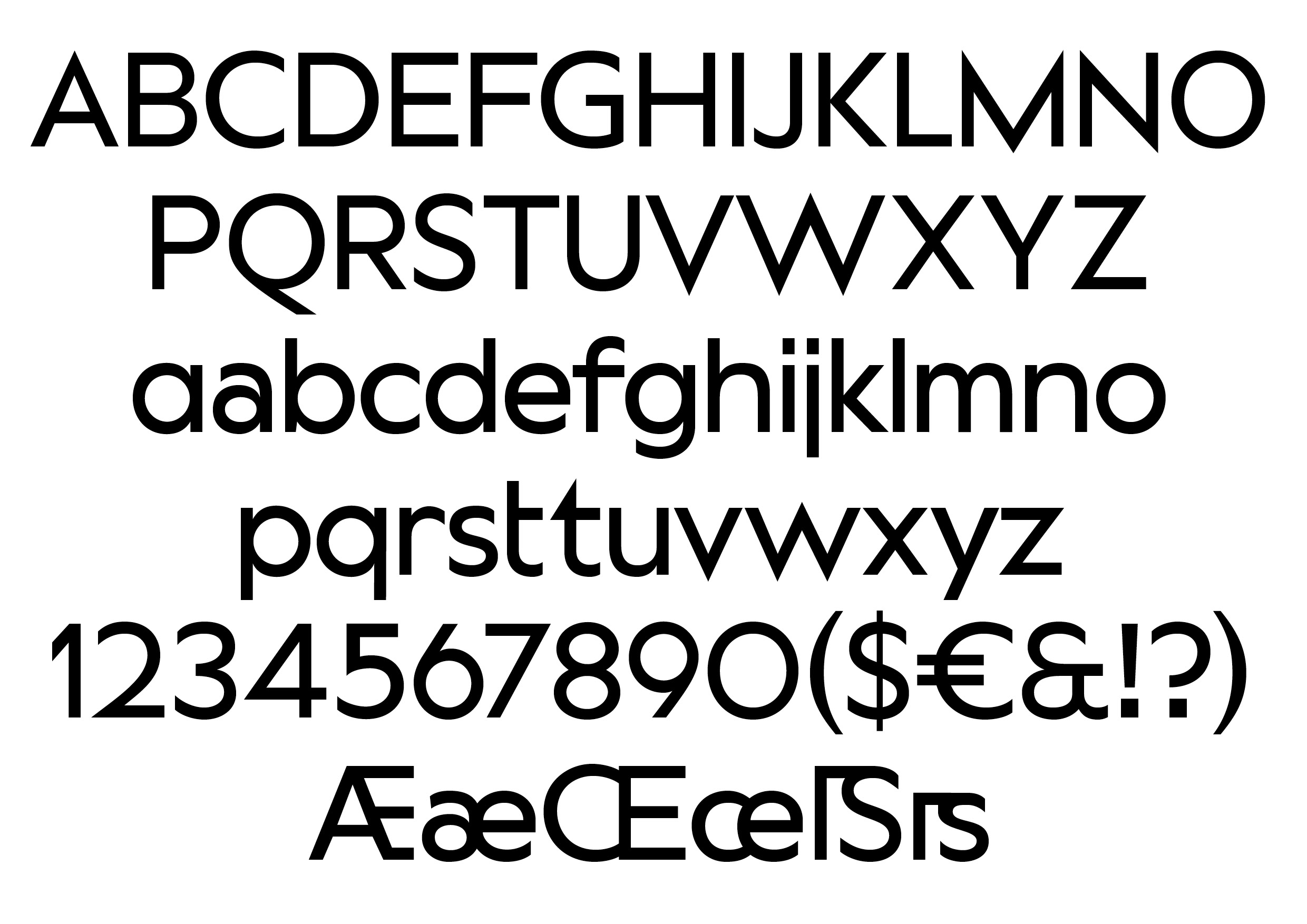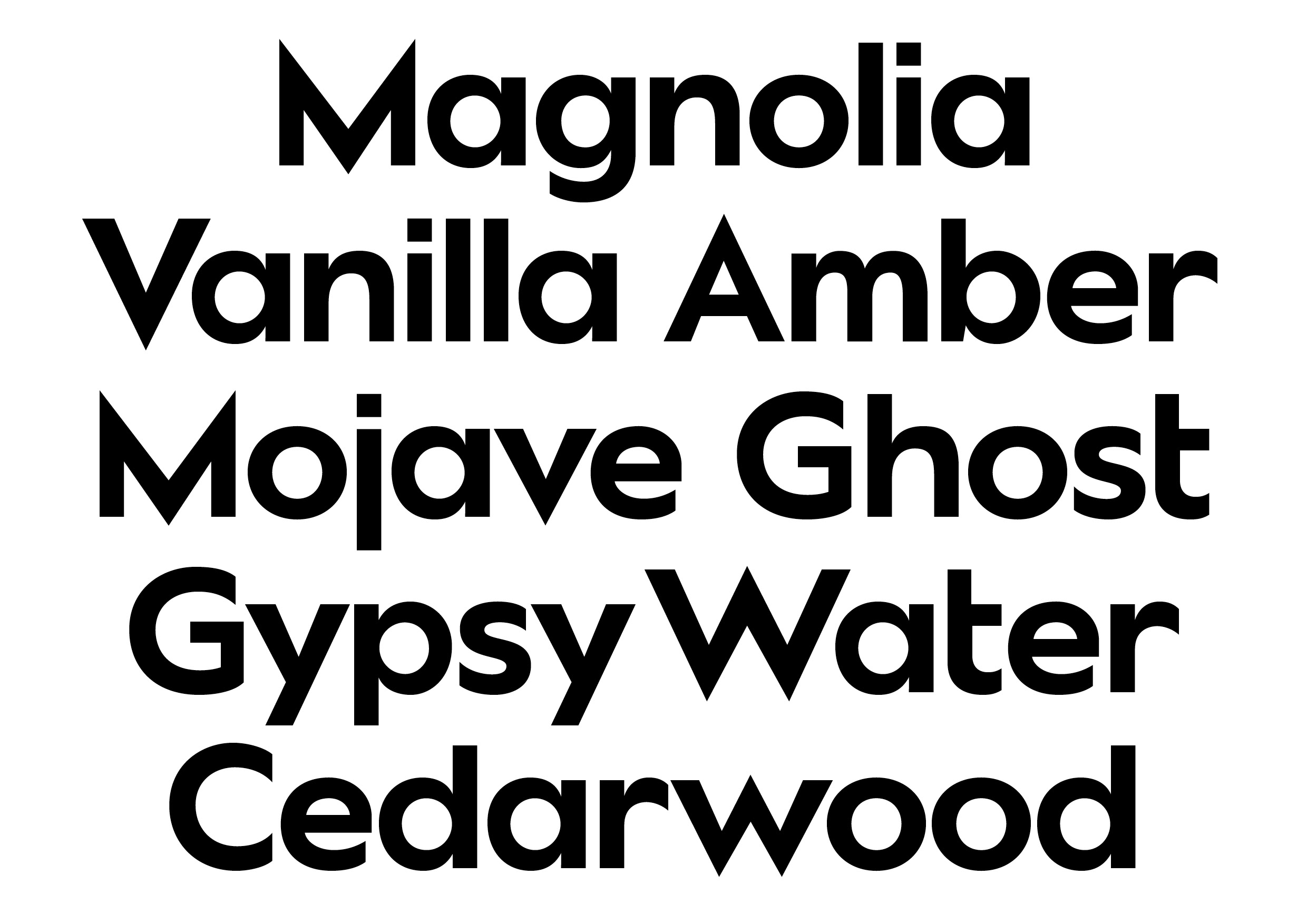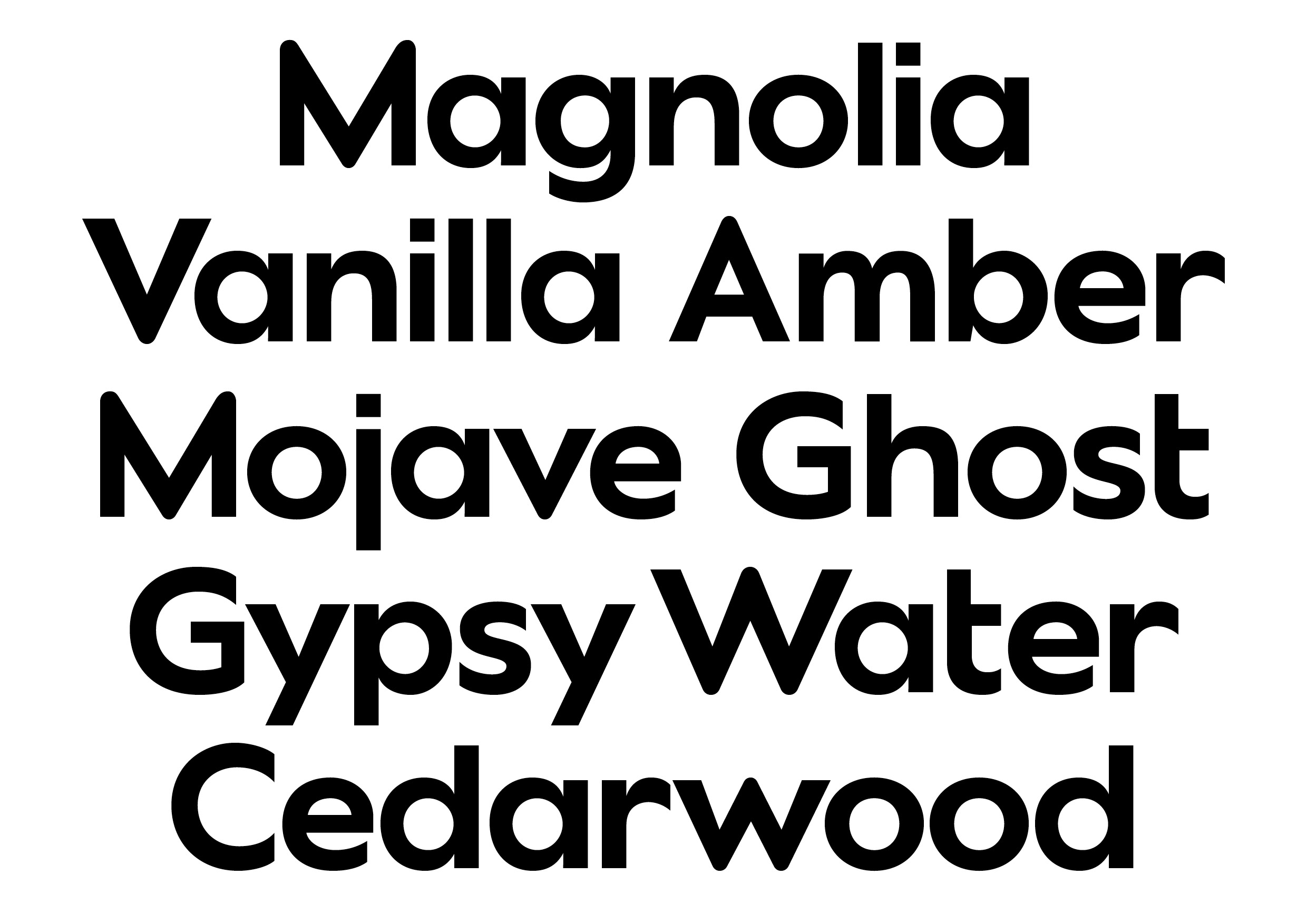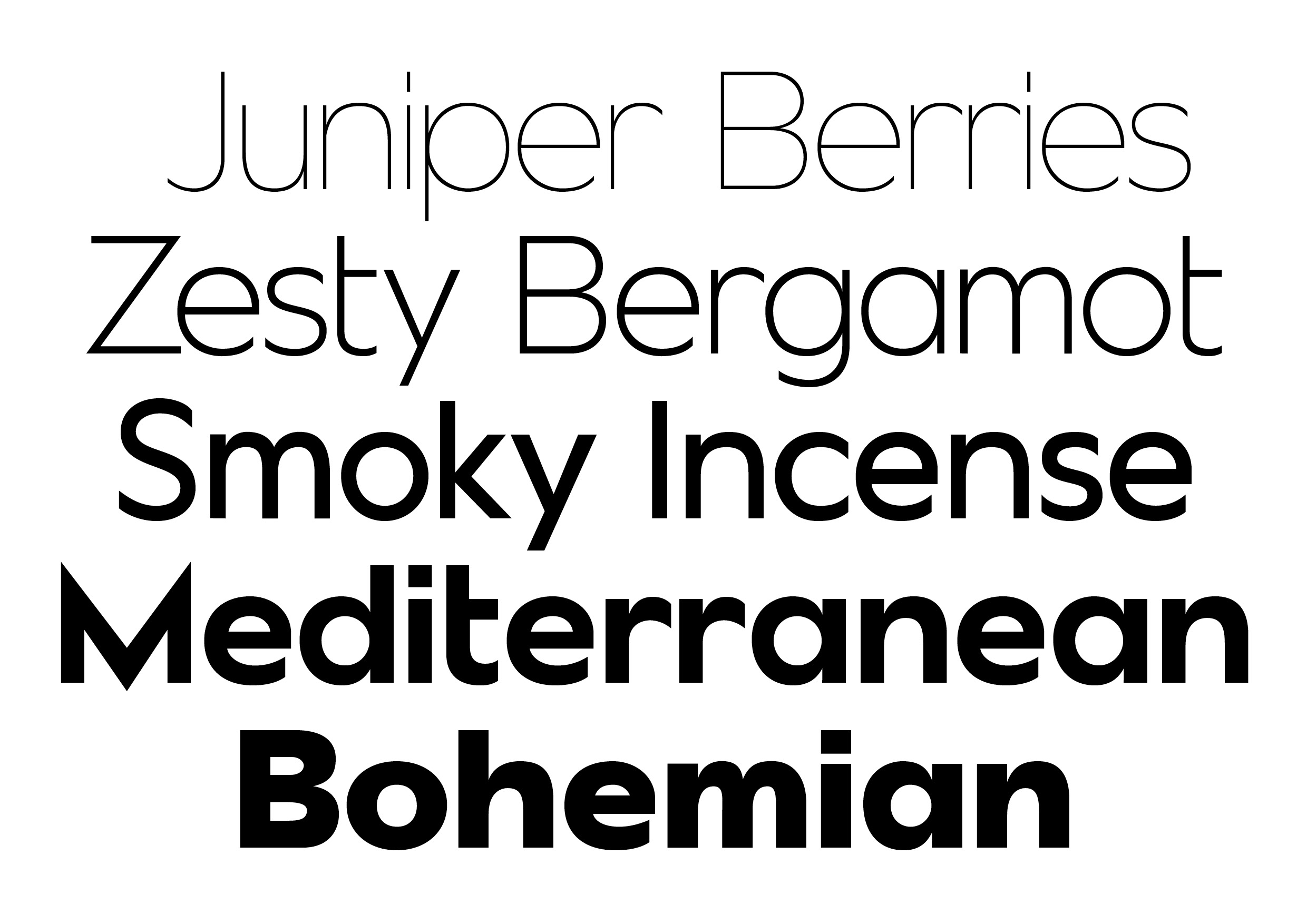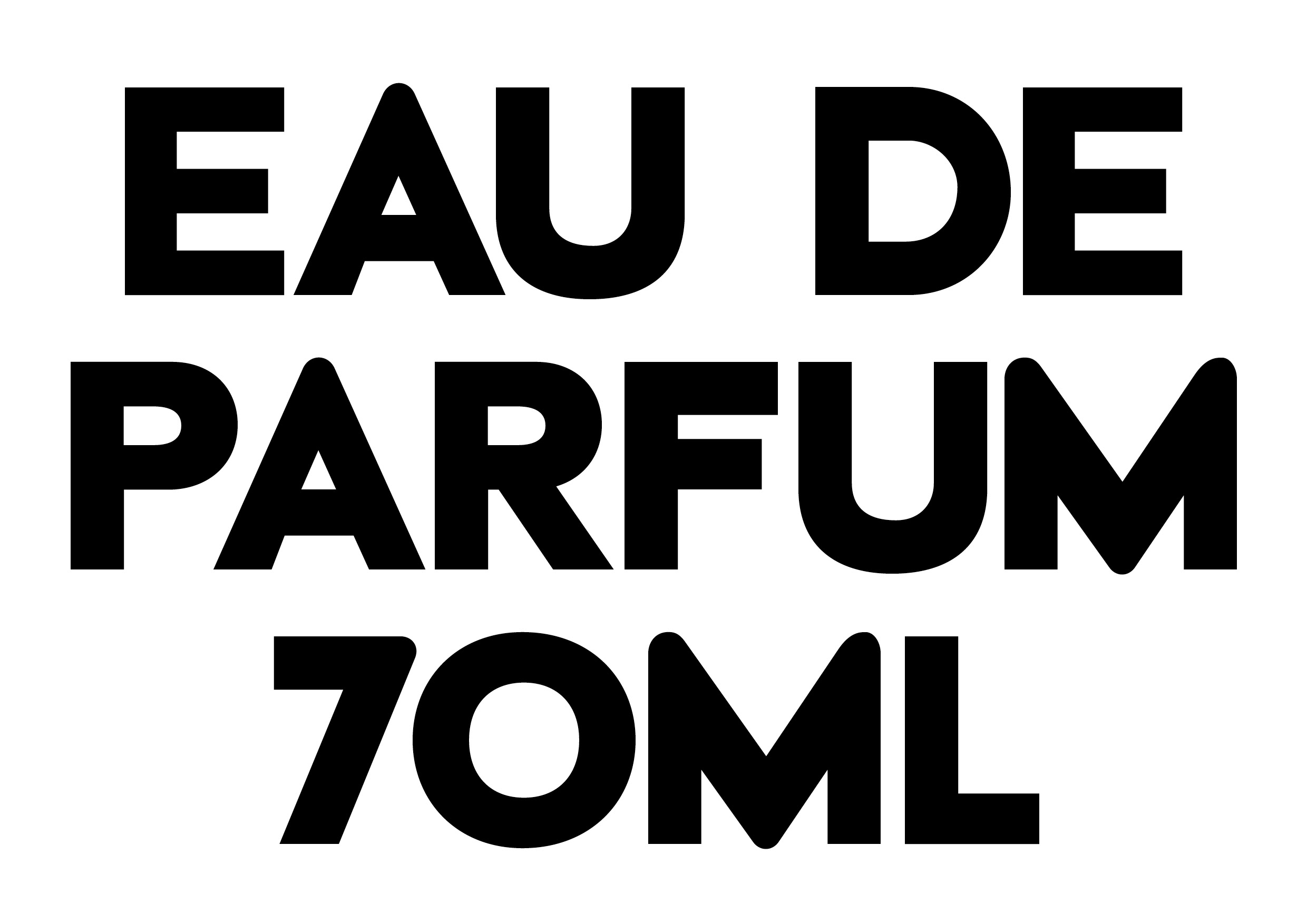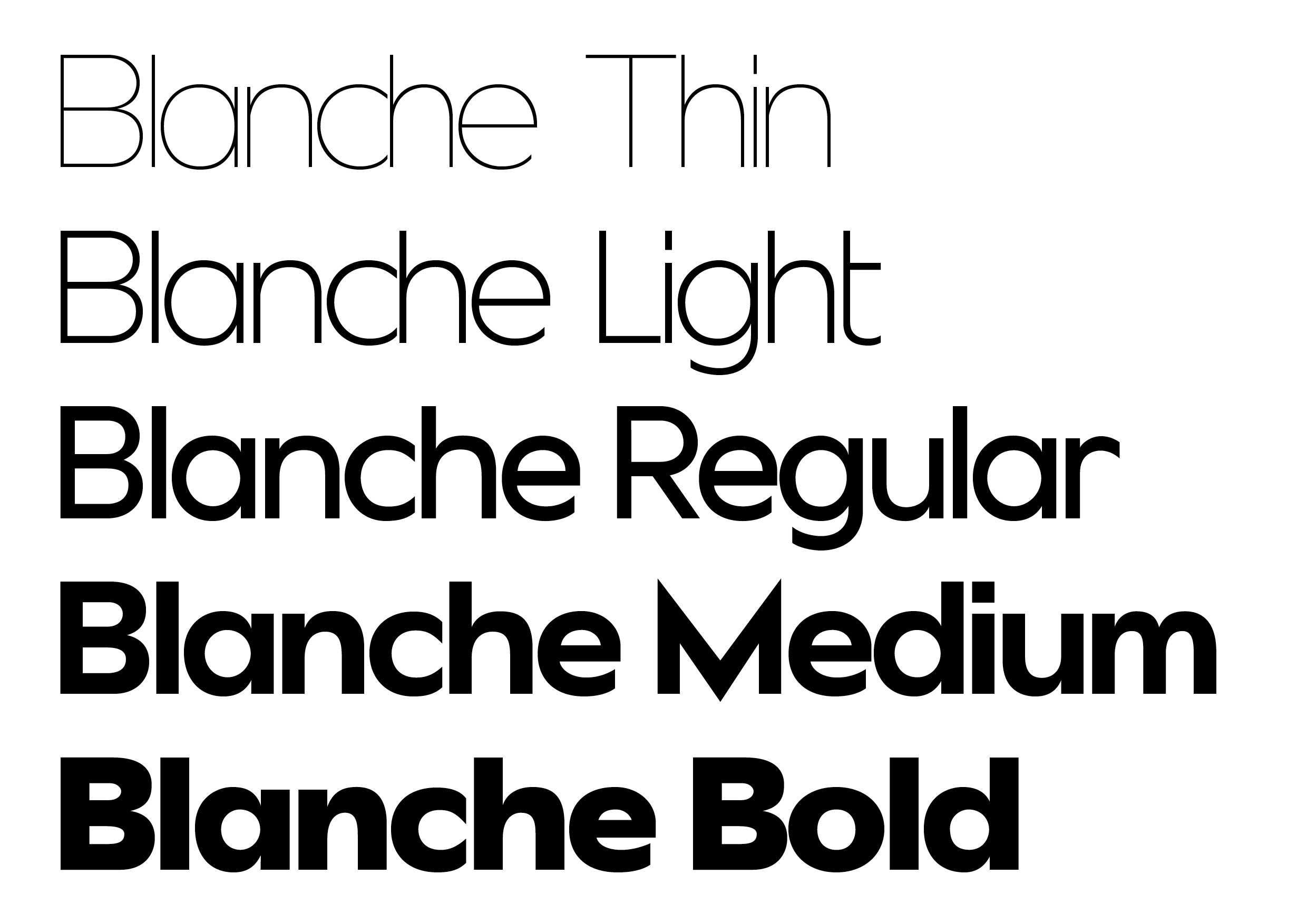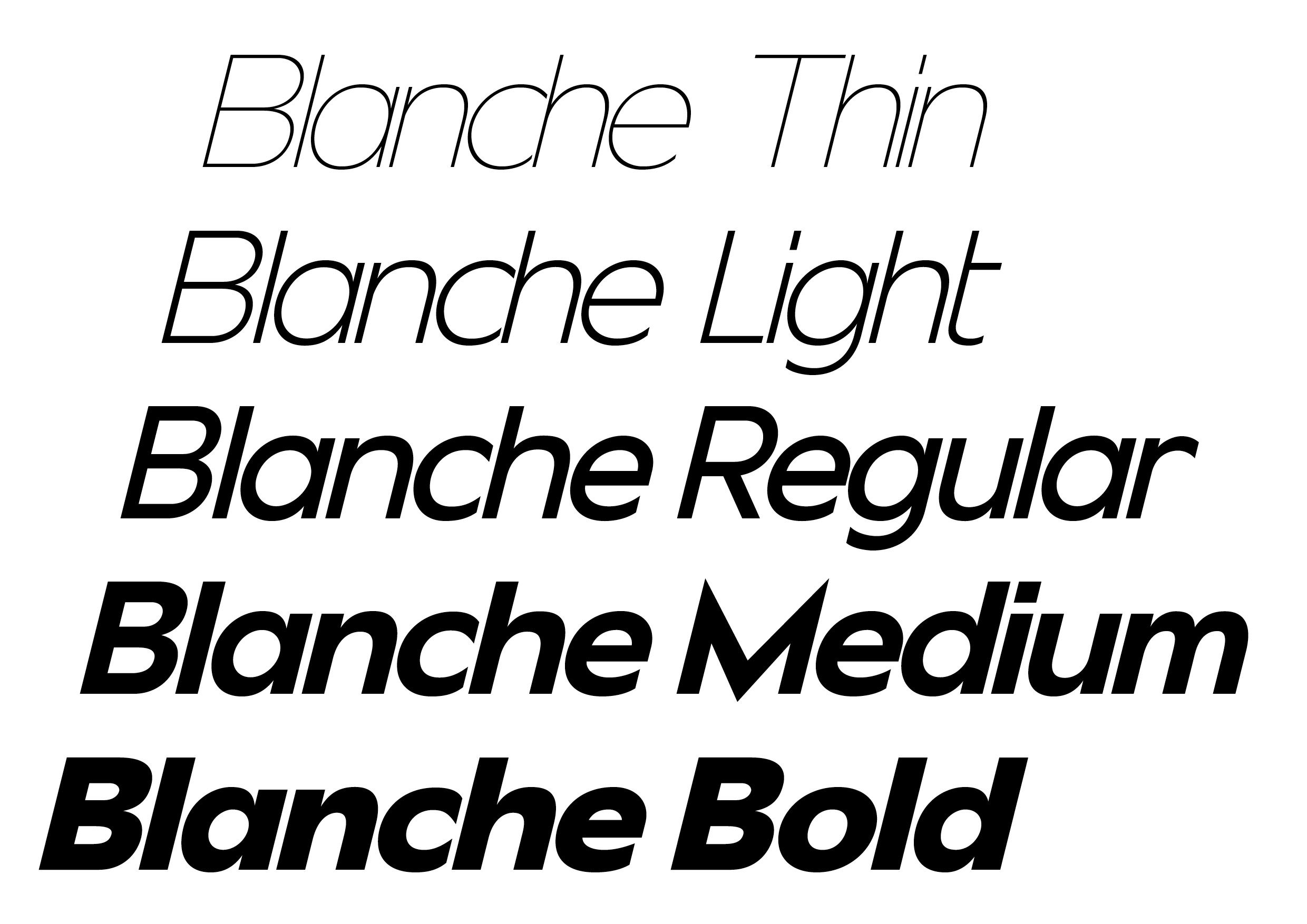
Blanche Sans
Blanche Sans is a playful and refined sans serif that channels the optimism and modernity of early 20th-century design. Inspired by the clean lines and forward-thinking spirit of the Bauhaus and pioneers like Paul Renner, it combines geometric foundations with a spirit of experimentation and forward-looking optimism. Influenced by Renner’s vision of merging clarity with humanist proportions, Blanche balances rationality and functionality with warmth and balance. The result is a typeface that feels both precise and approachable, capturing the joy, clarity, and timeless appeal of modernist typography.